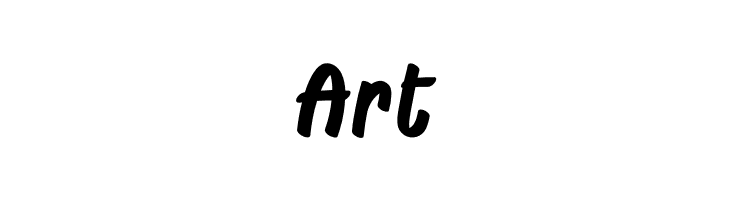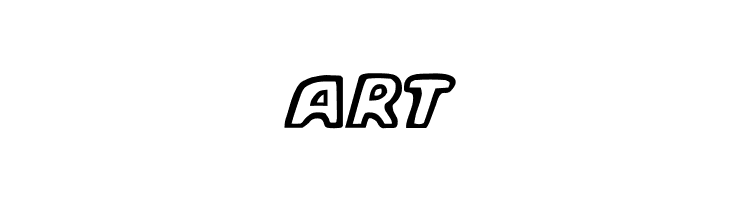
A modern, bold, and italicized typeface with consistent stroke thickness.
A bold, comic-style font with rounded outlines and a playful appearance.
A bold, rounded, and playful font with a cartoonish style.
A playful, handwritten font with a smooth, flowing style.
A sleek, modern italic font with smooth curves and clear readability.
A bold, playful handwritten font with smooth curves and thick strokes.
A playful, hand-drawn font with tall, narrow characters and a whimsical feel.